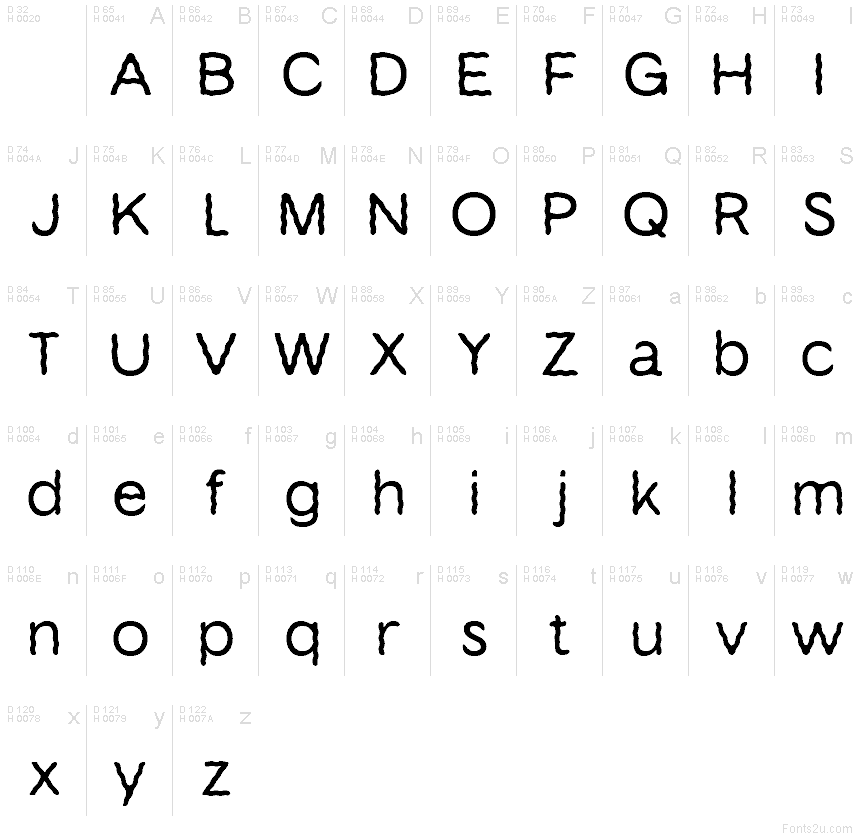
CSBohemianDrawn-Regular Demo
CS Bohemian Drawn font by Craft Supply Co. is a free display font with casual line work and fun characters. Its imperfect shapes give this font an artistic vibe completed through an organic natural flow, all of which result in naturally readable text.
CS Bohemian Drawn Demo